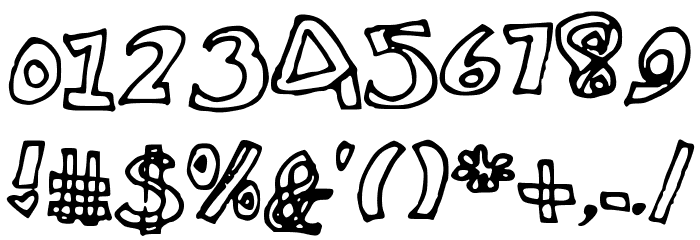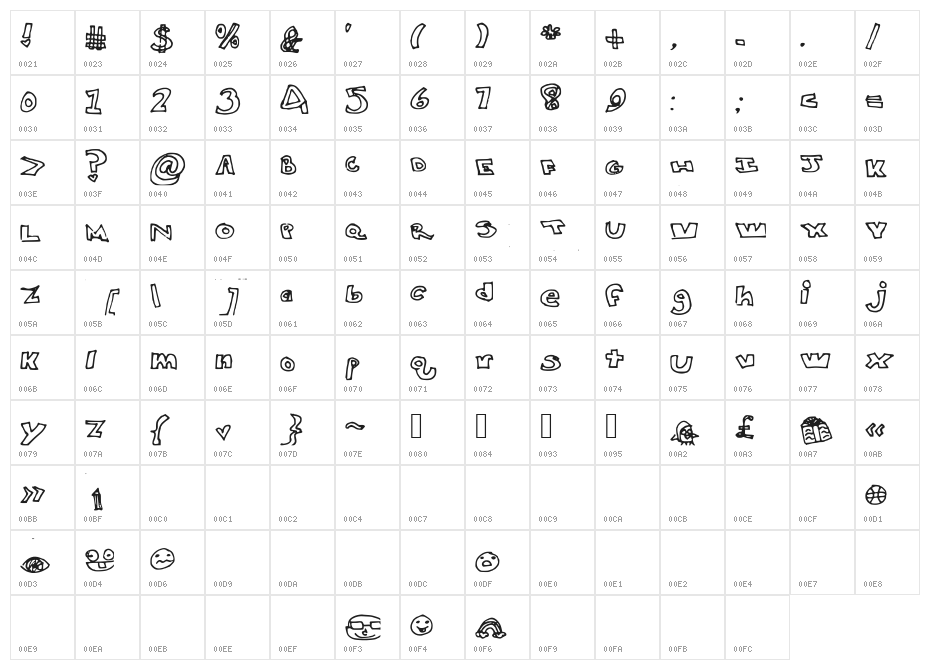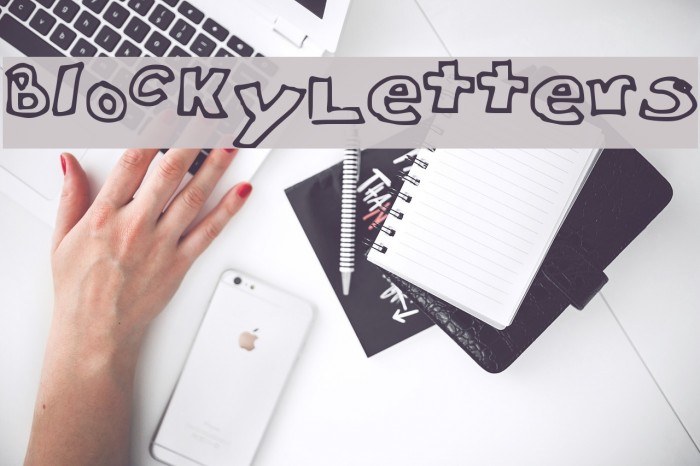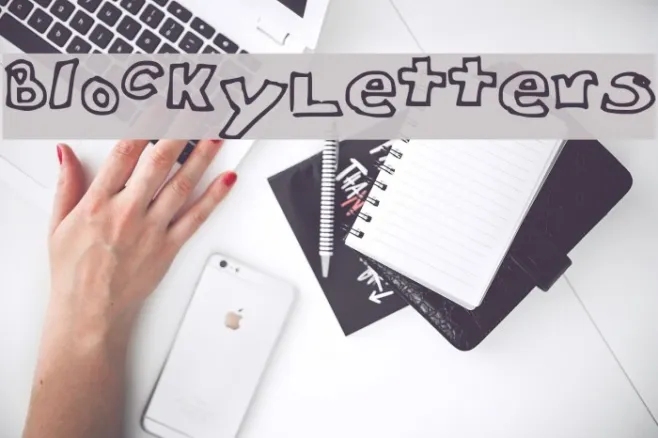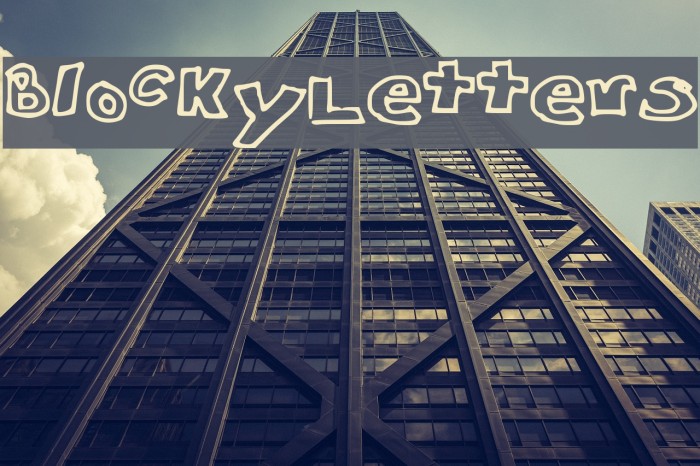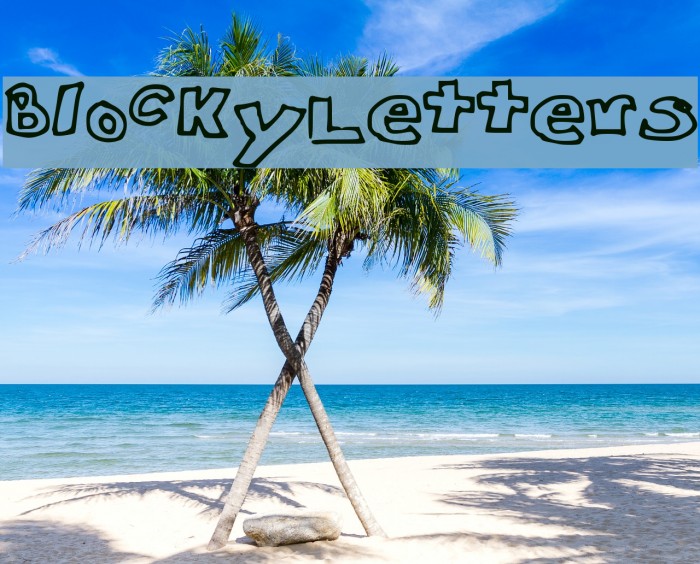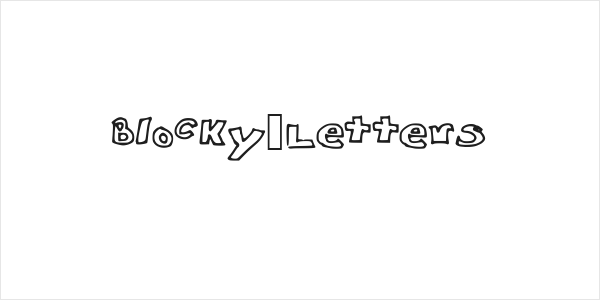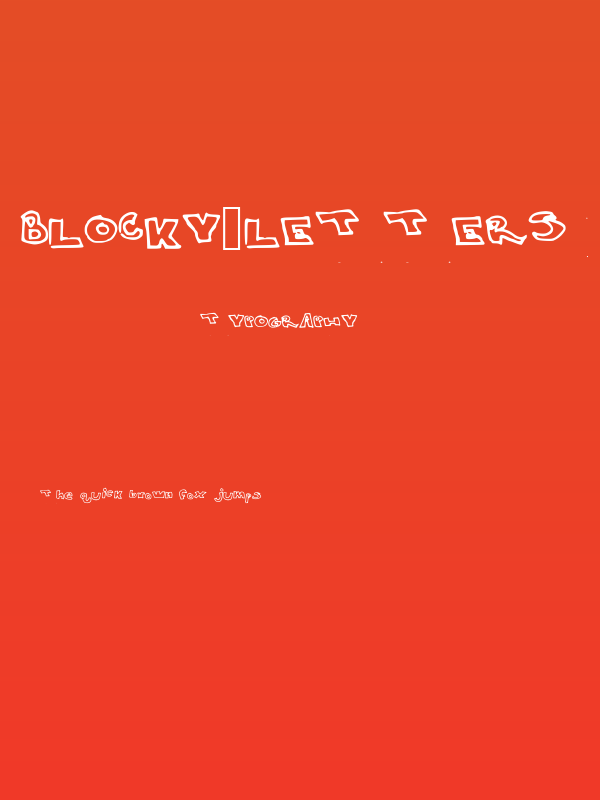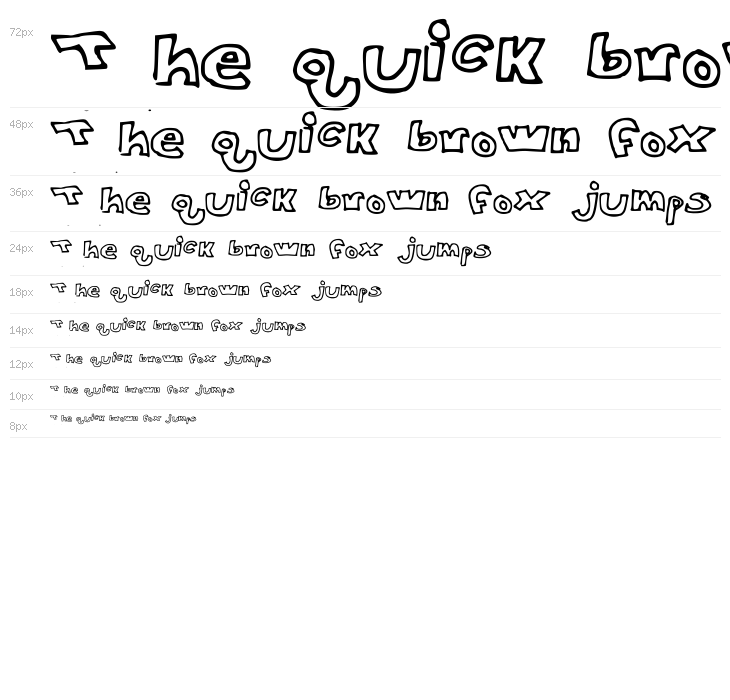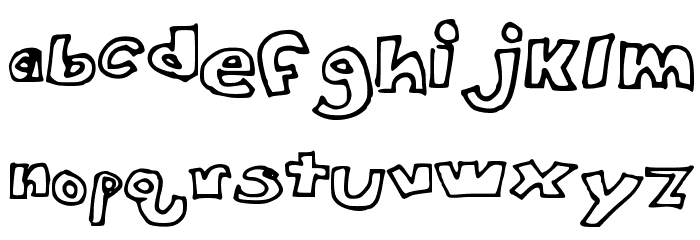
Blocky_Letters Font
Blocky_Letters Description
This font features a playful, hand-drawn style with bold, uneven strokes that give it a casual and whimsical appearance. The letters are characterized by their irregular shapes and varying sizes, creating a dynamic and lively look. The uppercase and lowercase letters maintain a consistent style, with exaggerated curves and angles that add to the font's quirky charm. The numbers and special characters follow the same playful design, making them suitable for creative and informal projects. The overall aesthetic is reminiscent of doodles or graffiti, making it ideal for projects that require a fun and informal touch.
| Use Case | Headlines, Posters, Informal Branding |
| Proposed Projects | Ideal for children's books, comic strips, playful posters, and informal branding. |